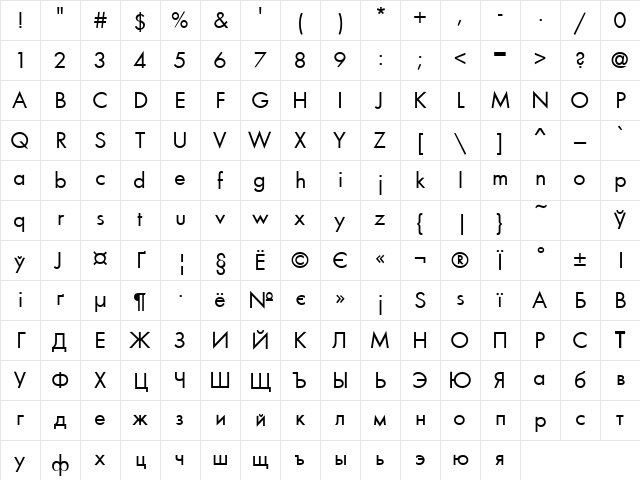
Fusion Regular Free Font
Fusion Regular
Fusion Regular Family
Design Context for Fusion
Fusion is a composed and adaptable typeface that performs quietly and consistently across a wide range of design contexts.